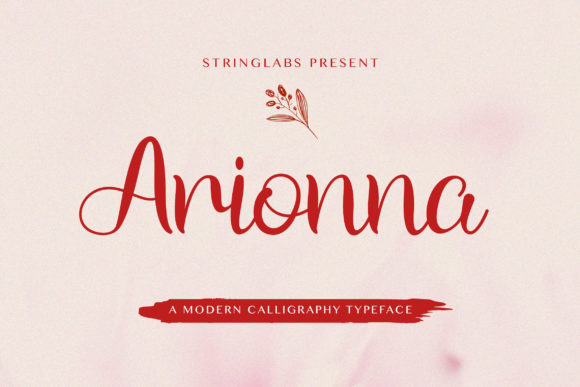
Discover the Elegance of Arionna Font: A Modern Script Font for Creative Projects
In the world of typography, few fonts manage to capture the essence of modern elegance and charm as effectively as the Arionna Font. This stunning script font is a masterpiece of contemporary calligraphy, boasting a unique blend of sophistication and playfulness. With its modern style and adorable ligatures, Arionna has quickly become a favorite among designers and crafters looking to add a touch of class and personality to their projects.
What Makes Arionna Font Stand Out?
Arionna Font is not just another script font; it’s a versatile and powerful tool for anyone looking to create visually appealing content. Here are some of its standout features:
• Modern Calligraphy Style: Arionna’s design is deeply rooted in modern calligraphy, offering a fresh and contemporary look that sets it apart from more traditional fonts.
• Cute Ligatures: The font comes with a range of ligatures that add a playful and unique touch to any text, making it perfect for projects that require a bit of personality.
• High Versatility: Whether you’re working on a fashion brand, wedding invitation, business card, logo, or social media post, Arionna Font adapts seamlessly to any project, ensuring your message is delivered with style and impact.
Arionna’s versatility is one of its most compelling attributes. Its modern and elegant appearance makes it an ideal choice for a variety of creative projects, including:
• Fashion Brands: Elevate your fashion brand with a sophisticated and trendy look that captures the essence of your designs.
• Wedding Invitations: Add a touch of romance and elegance to your wedding invitations, making them truly unforgettable.
• Business Cards: Stand out in the professional world with stylish business cards that reflect your personal brand.
• Logos: Create a memorable logo that embodies the spirit of your brand, using Arionna’s distinctive charm.
• Social Media Posts: Make your social media content pop with a font that grabs attention and adds a professional touch.
Why Designers and Crafters Love Arionna Font
Arionna Font has quickly gained popularity among designers and crafters for several reasons:
• Ease of Use: Despite its sophisticated look, Arionna is incredibly easy to use, even for those who are new to design.
• Customization: The font’s flexibility allows for a high degree of customization, enabling users to tailor their text to fit their project’s specific needs.
• Support for Various Languages: Arionna offers support for multiple languages, making it a great choice for global projects.
Tips for Getting the Most Out of Arionna Font
To truly leverage the potential of Arionna Font, consider the following tips:
• Experiment with Ligatures: Don’t be afraid to try out different ligatures to find the ones that best suit your project’s tone and style.
• Mix and Match with Other Fonts: Arionna pairs well with a variety of fonts. Experiment with different combinations to create a unique look.
• Adjust Font Sizes: Play with different font sizes to add depth and emphasis to your text, making it more engaging.
Arionna Font is a game-changer for designers and crafters looking to infuse their projects with a modern, elegant touch. Its unique blend of calligraphy style and cute ligatures, combined with its versatility and ease of use, makes it an invaluable tool in any creative arsenal. Whether you’re working on a fashion brand, a wedding invitation, or simply looking to elevate your social media posts, Arionna Font is sure to exceed your expectations and help you achieve your design goals.